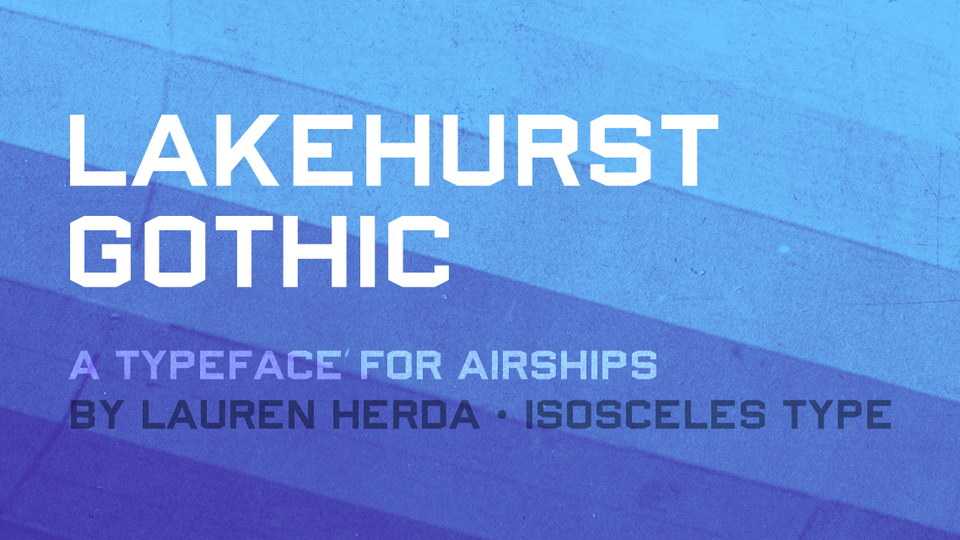
Download Lakehurst Gothic font, a mechanical display typeface based on the lettering from U.S. Navy airships of the early 20th century. Lakehurst Gothic bear a resemblance to Bank Gothic and Microgramma, but with several key differences that give them a character all their own.